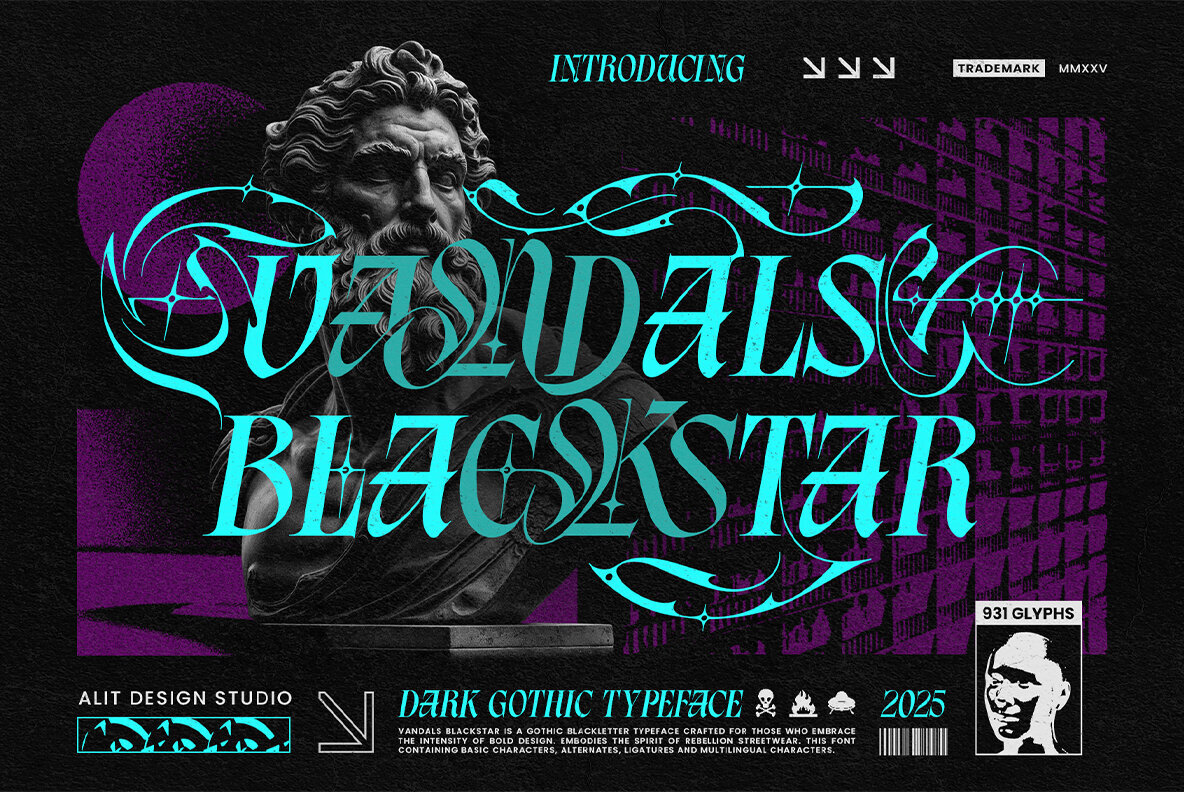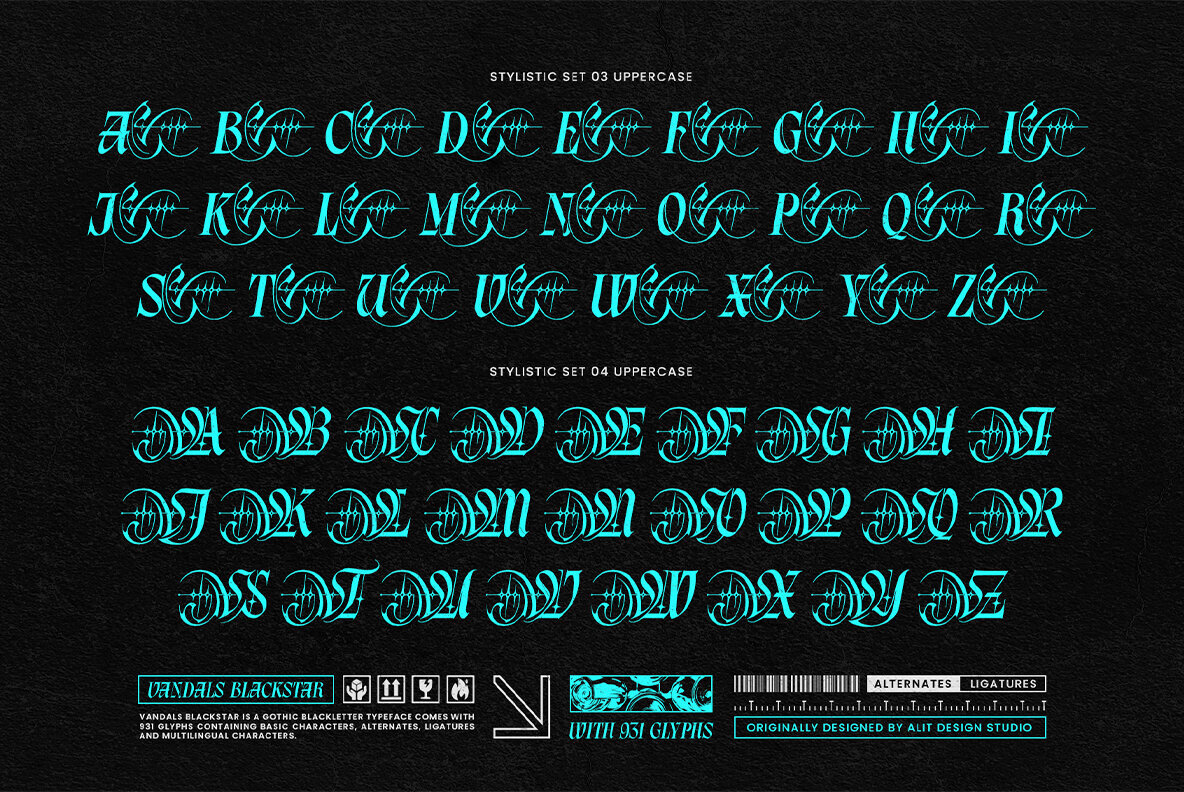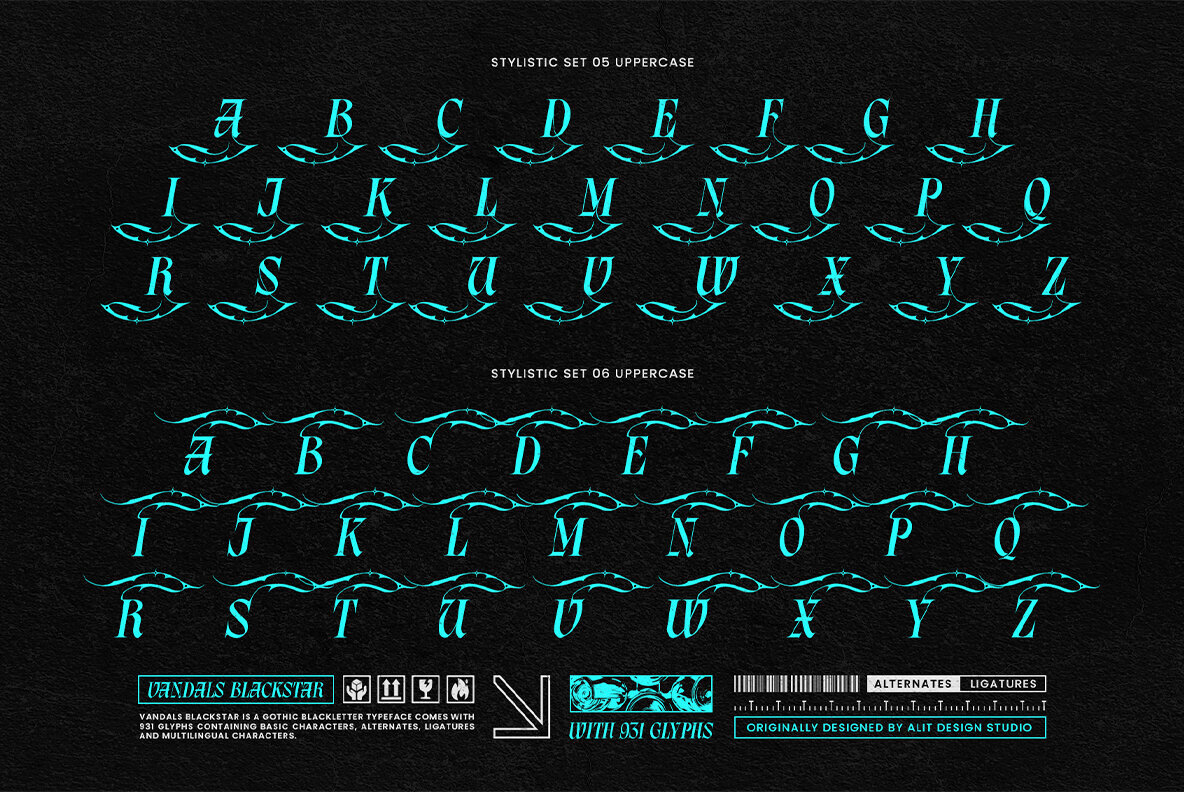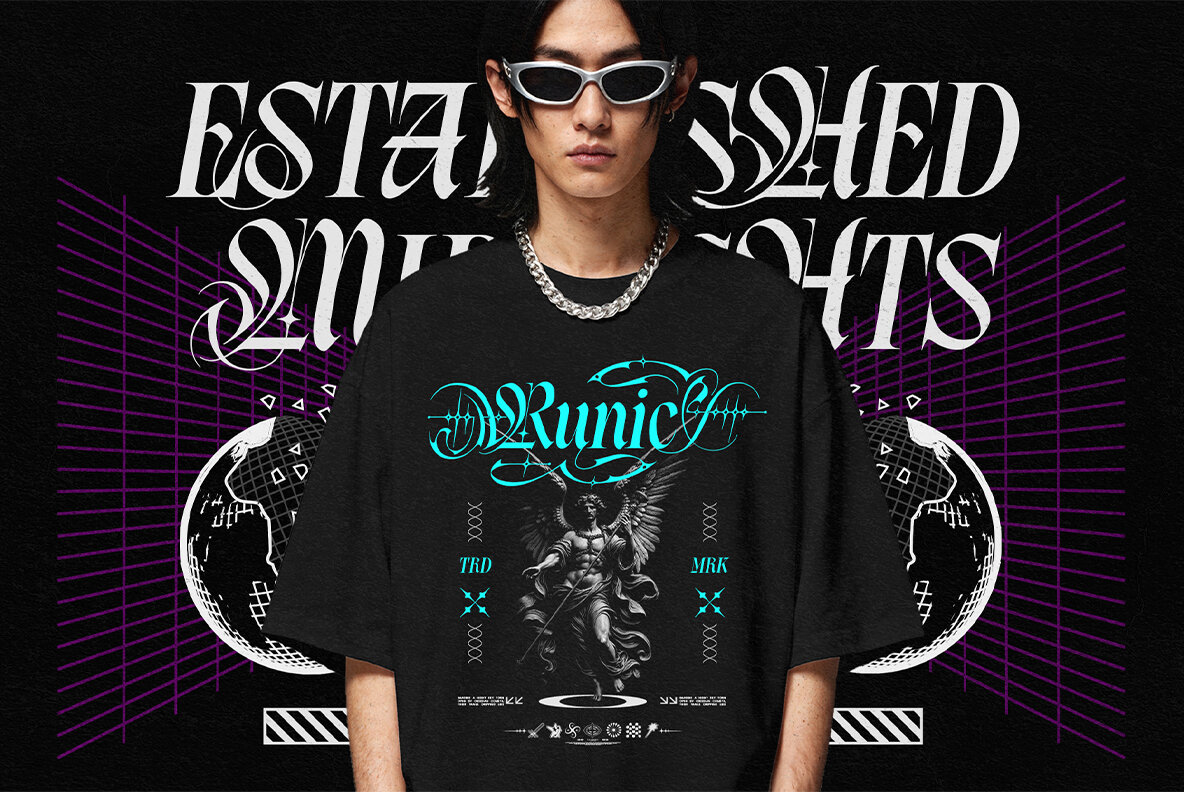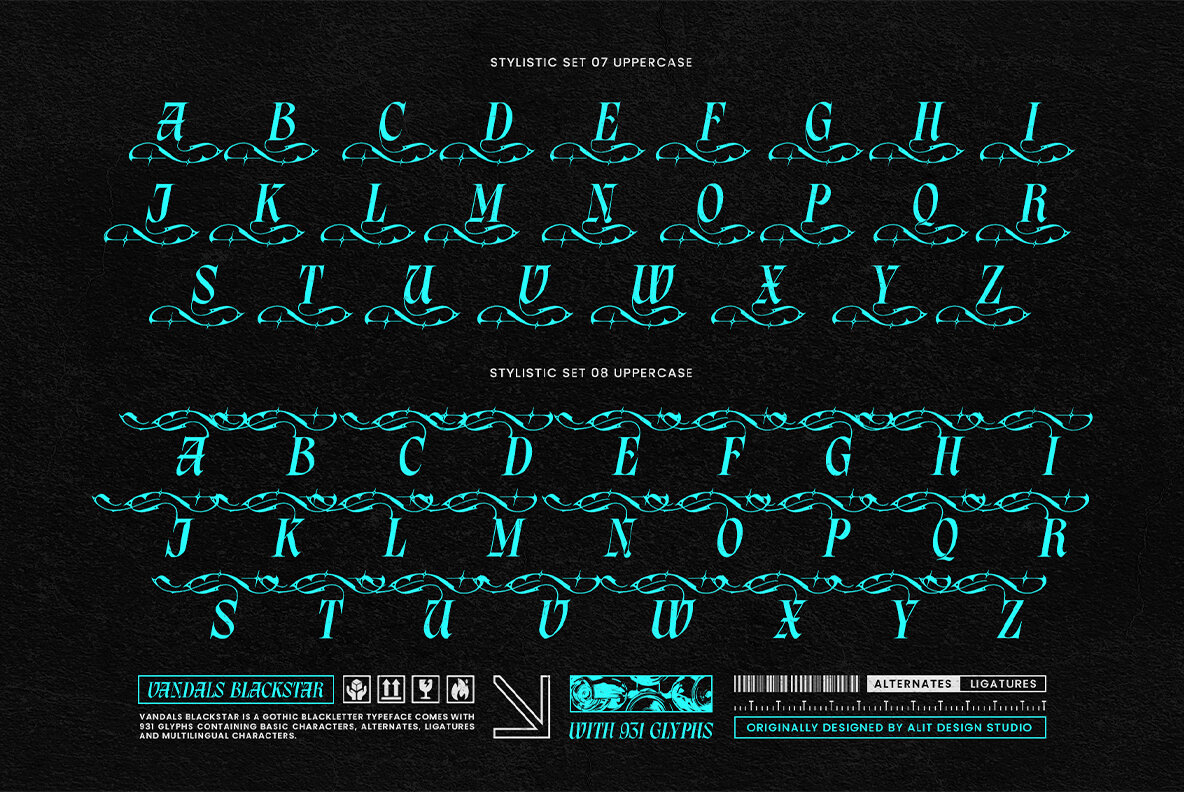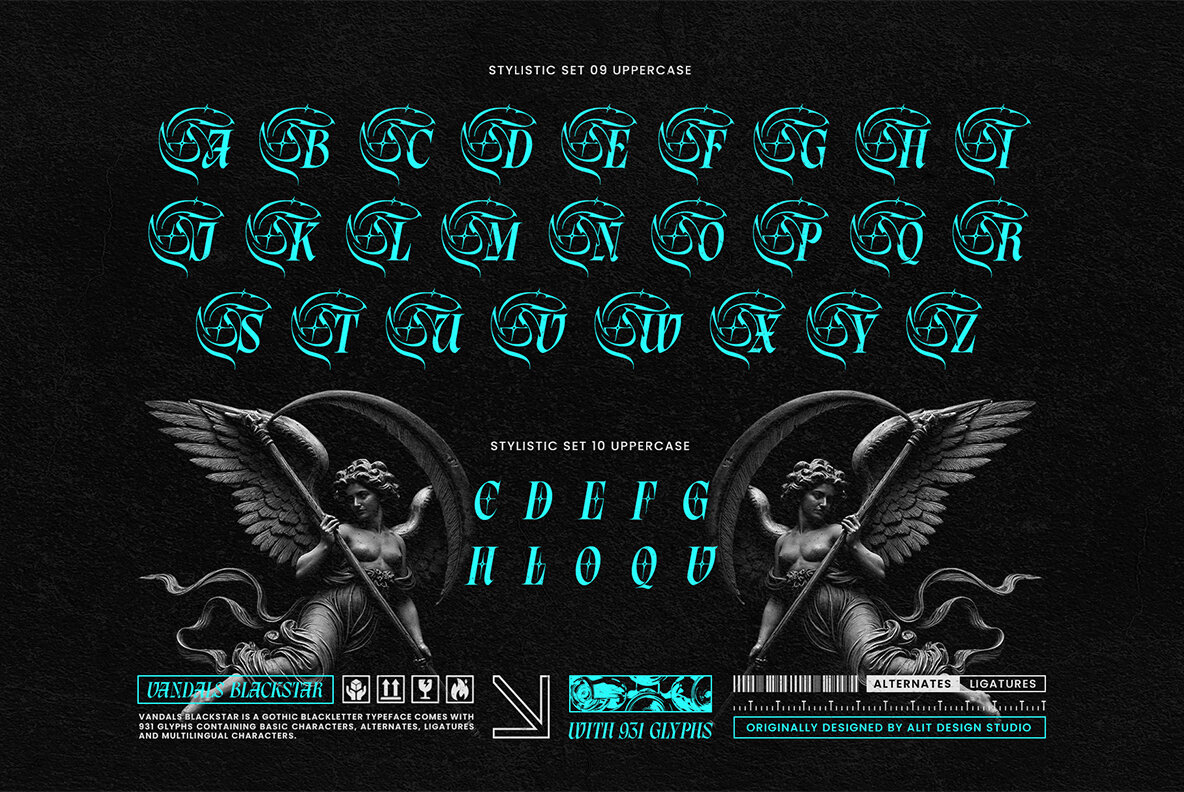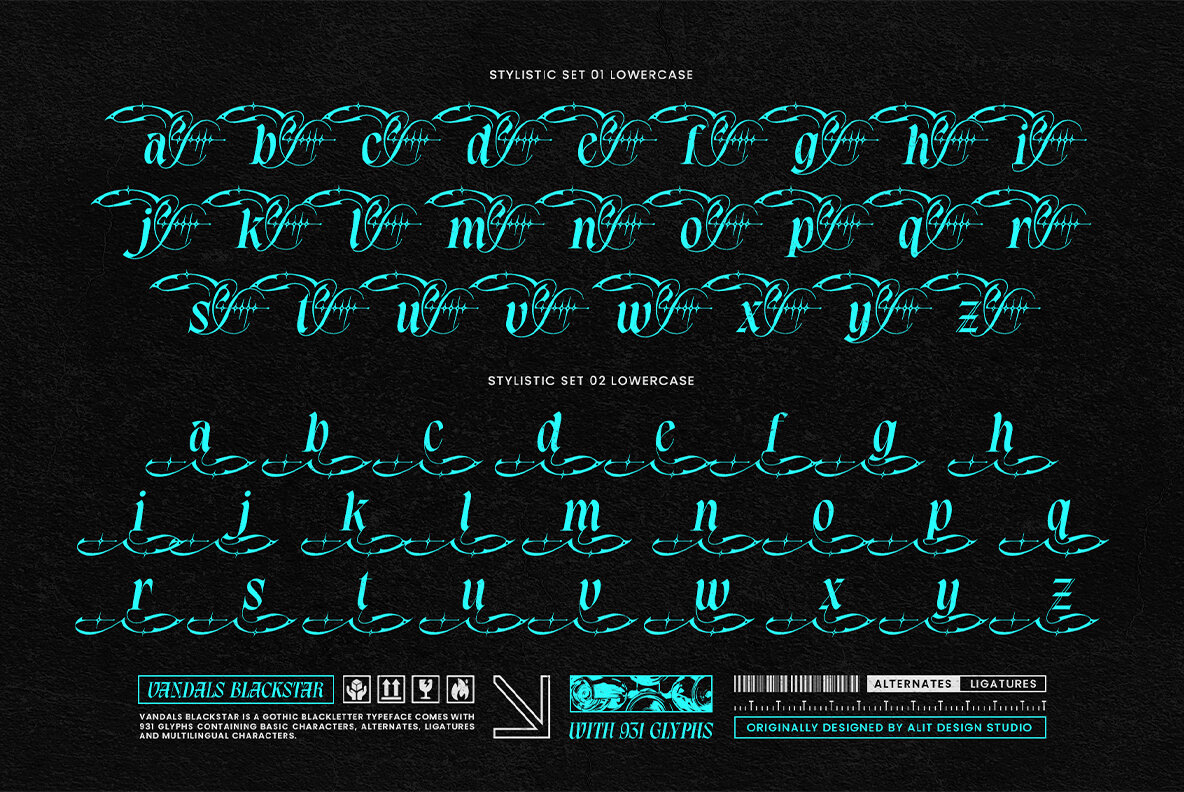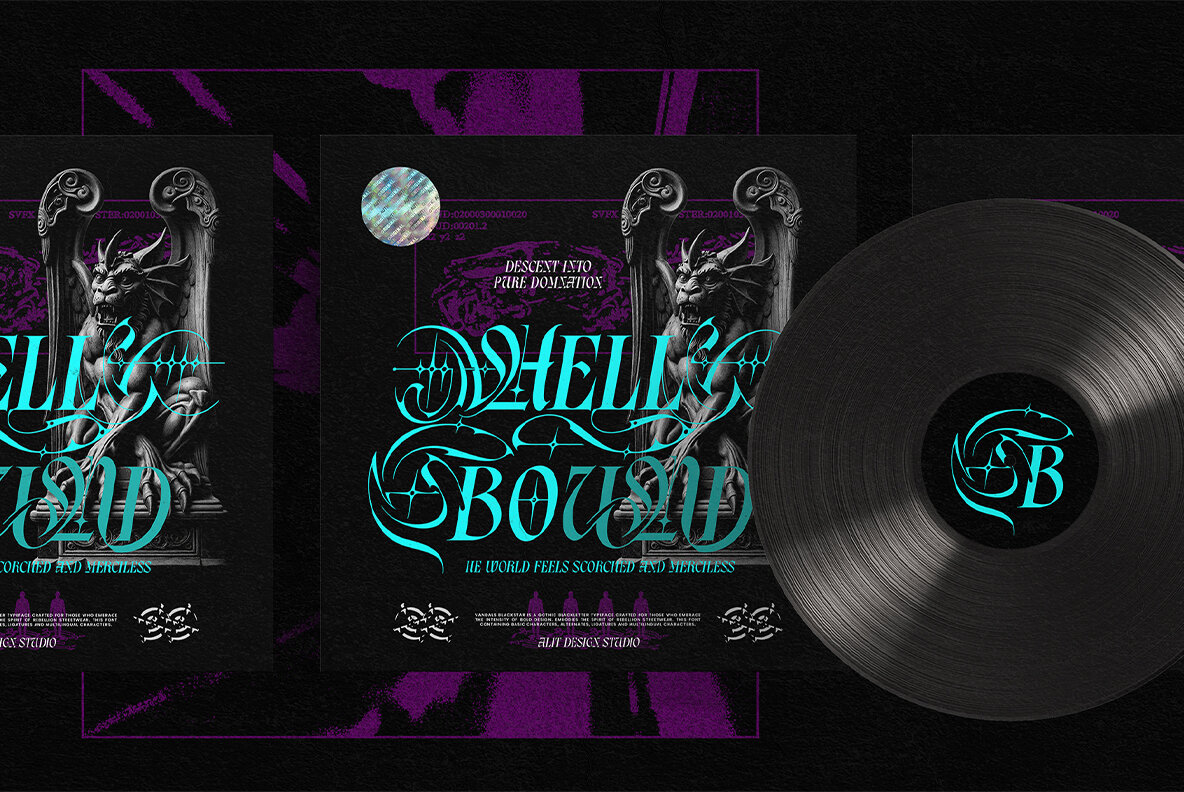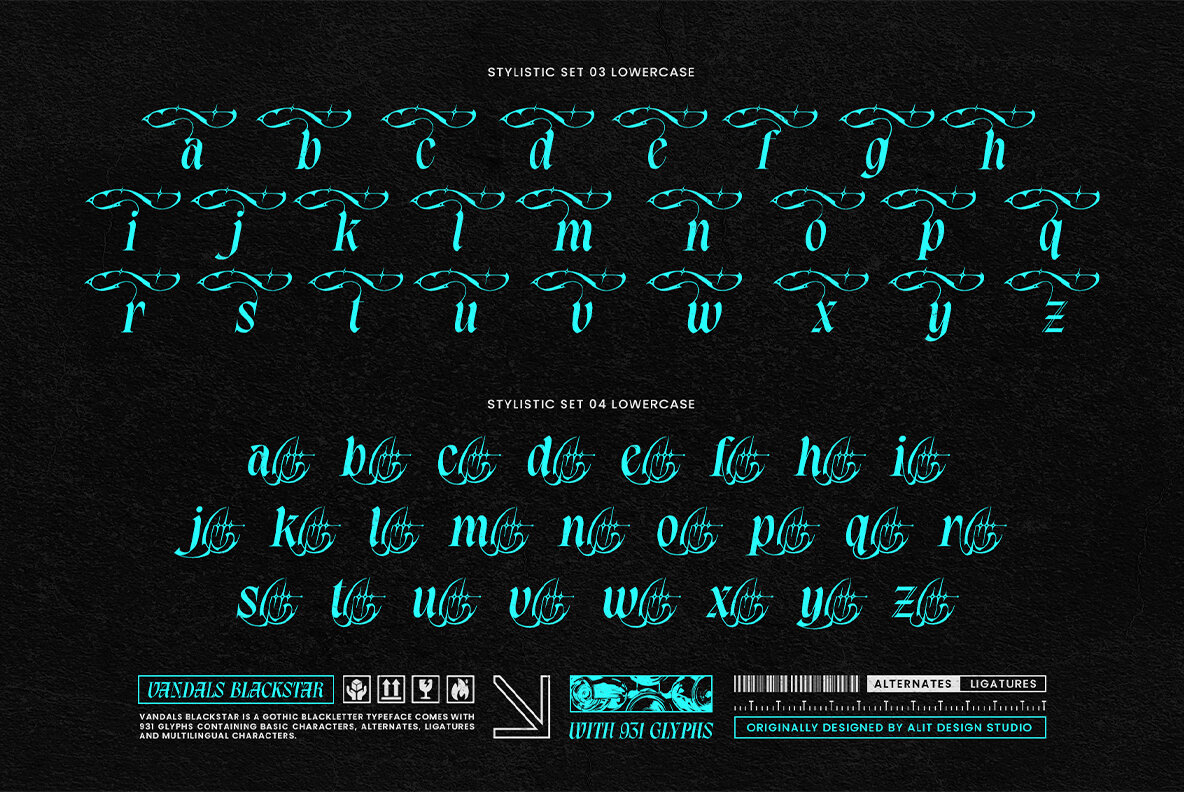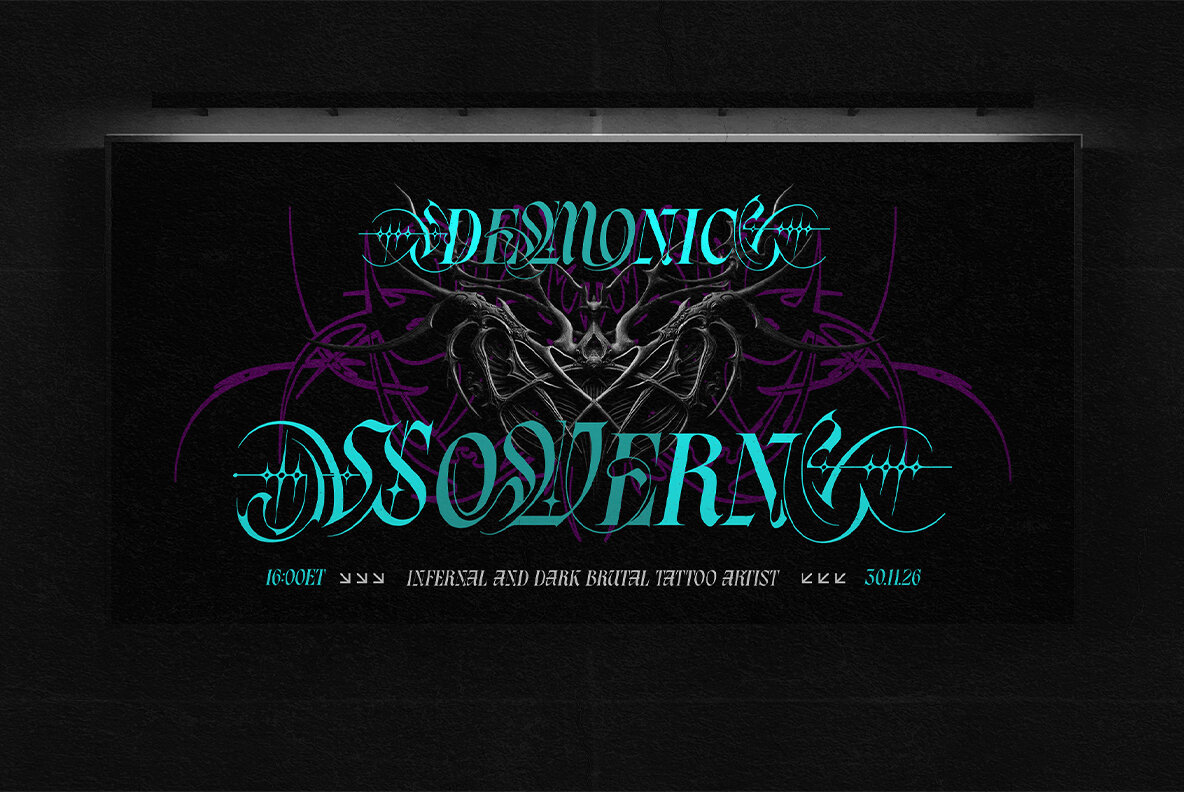
Vandals Blackstar Font
Vandals Blackstar Regular
Vandals Blackstar stands at the intersection of historical grandeur and urban audacity, capturing the attention of designers who seek more than convention. This blackletter font draws on stonework monumentalism yet reinterprets tradition through fluid swashes and thorn-like terminals. Its striking rhythm and sharp contrasting strokes yield a distinctive character—intense yet legible, ornate yet anchored in contemporary visual language. Graphic designers and creative directors will find Vandals Blackstar especially suited for projects demanding presence: branding, editorial headlines, music industry graphics, or merchandise.Vandals Blackstar: Gothic Blackletter With Modern Edge